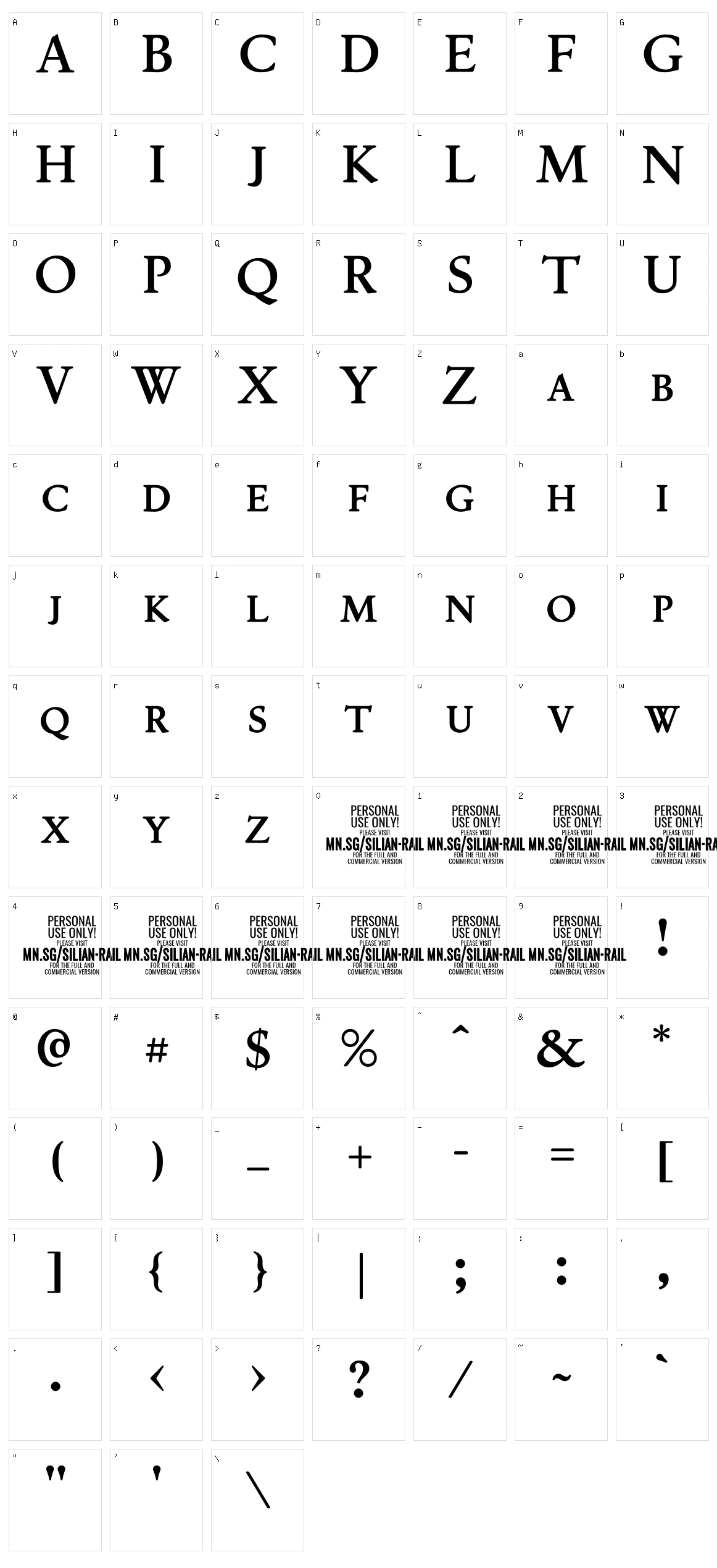
Silian Rail is a high quality serif typeface.
A professional uppercase font, this intellectual font has a distinct personality while being strict and controlled.
Drawn and created by Mans Greback in 2022, the Silian Rail family consists in 16 high-quality styles, complimenting each other.
Among them, Light, Regular, Bold, Black, Italic, Sharp and several combinations.
The font is built with advanced OpenType functionality and has a guaranteed top-notch quality, containing stylistic and contextual alternates, ligatures and more features; all to give you full control and customizability.
It has extensive lingual support, covering all Latin-based languages, from Northern Europe to South Africa, from American to South-East Asian.
It contains all characters and symbols you'll ever need, including all punctuation and numbers.